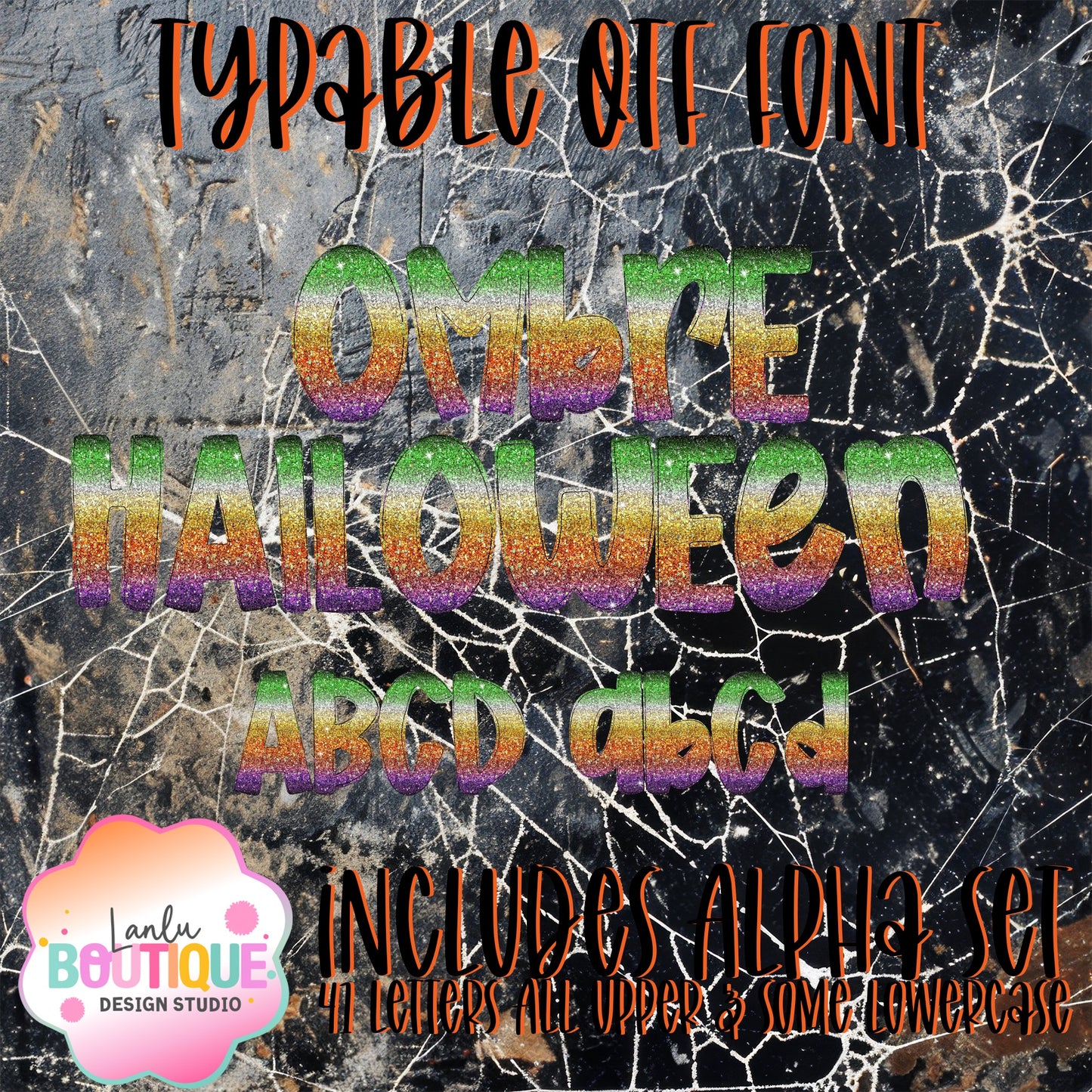
Ombre Halloween Glitter OTF Typable Hand drawn Font
Elevate your Halloween designs with the Ombre Halloween Glitter OTF font, featuring a hand-drawn style that combines elegant, typable characters with a subtle ombre glitter effect. Perfect for invitations, posters, and festive branding, this font adds a refined, seasonal touch while maintaining readability and versatility.